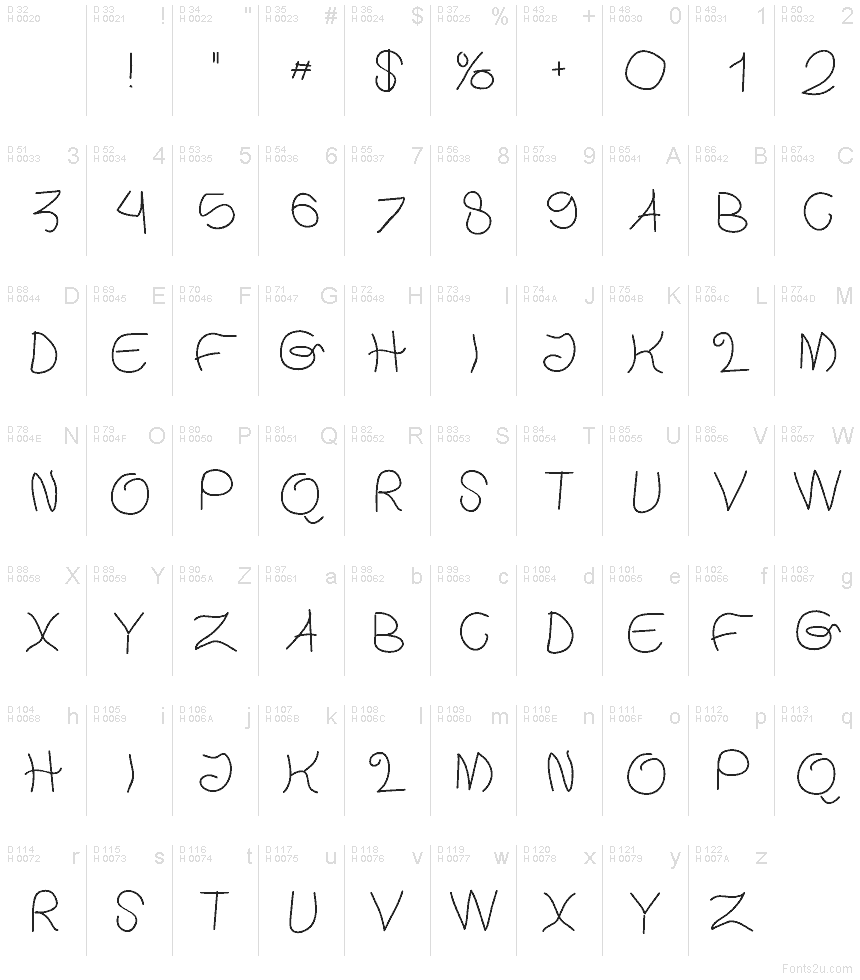
Famili Lemons
Famili Lemons font by Ffeeaarr is a free thin handwritten display font. Built around wiry, single-line strokes and cheeky spiral terminals, it has a tall, narrow pace that feels light on the page yet full of personality. The letters wobble just enough to feel human—curves pinch into lemony arcs, lines taper like ink from a fine-liner, and spacing stays airy so words breathe.
Using Famili Lemons, headlines snap with playful clarity—great for juice bar menus, summer posters, kids’ event flyers, stickers, greeting cards, and crafty packaging. This free font shines when set big with generous letterspacing, where its curls can do the talking. Pair with a clean, rounded sans for body copy to ground the whimsy without dulling the spark.